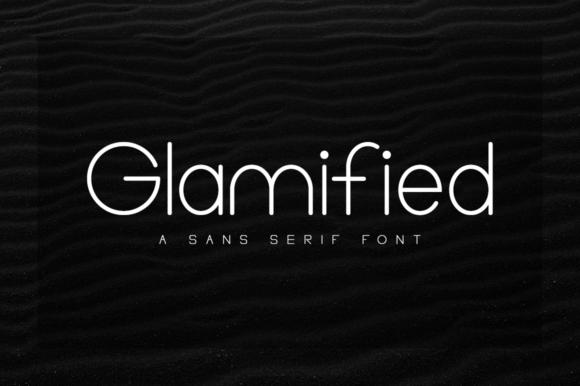
Glamified Font
Glamified is a minimal and neat display font. It can easily be matched to an incredibly large set of projects, so add it to your creative ideas and notice how it makes them stand out!